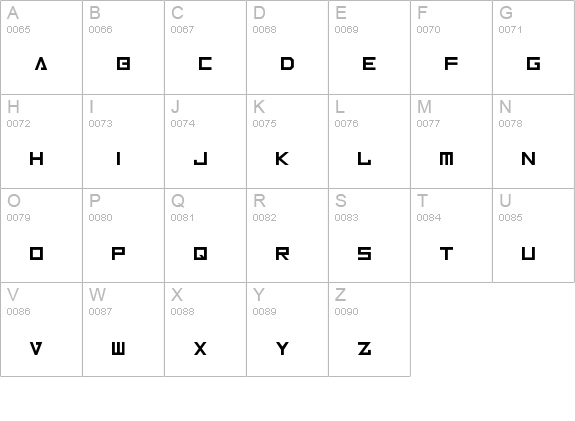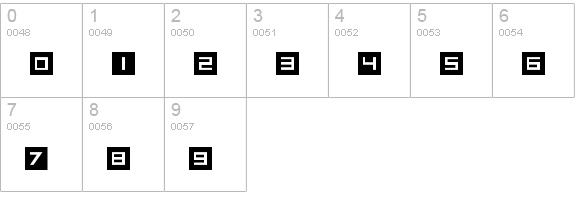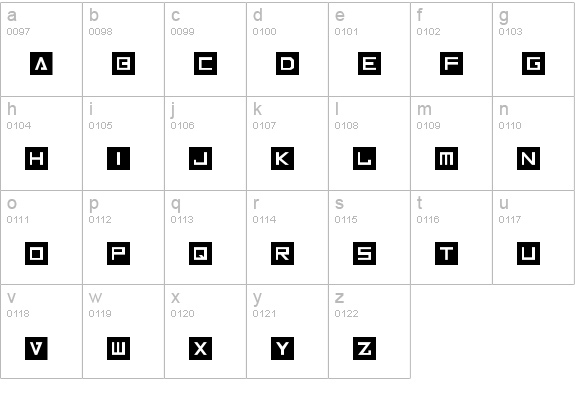
Inversionz Font Details
Inversionz is a donationware font in the Modern > Techno category, designed by Darrell Flood. It has been downloaded 49 times and is available for Windows, Mac and Linux.
Inversionz font is a sleek and modern typeface that boasts a contemporary design with a unique twist. Its sharp lines and bold strokes create a striking visual impact, making it perfect for a wide range of design projects. This versatile font exudes a sense of sophistication and professionalism, making it ideal for branding, advertising, and editorial design.
What sets Inversionz font apart is its distinctive inverted letterforms that add a touch of creativity and originality to any text. The elegant curves and sharp angles of this font make it stand out from the crowd and give your designs a cutting-edge look.